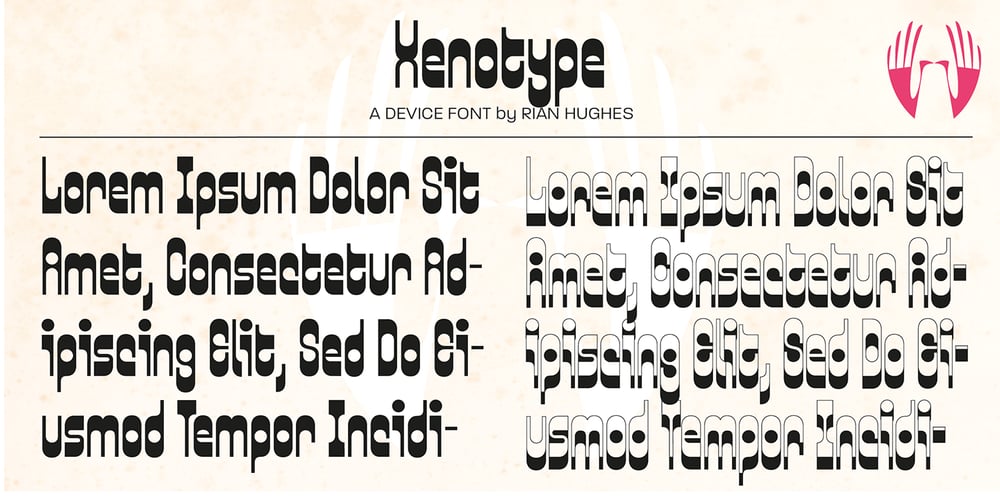
Xenotype Font Family was designed by Rian Hughes and published by Device. Xenotype contains 2 styles and family package options. Xenotype is an examination of heavy horizontal weighting and develops ideas underlying 60s and 70s headline faces.